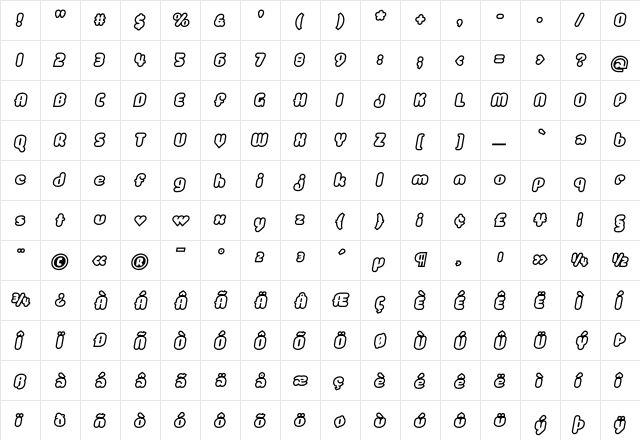
Luvbug Outline
Design Context for Luvbug Typeface
Luvbug is built around its visual character rather than neutral utility — its distinctive forms are designed to make an impression at display sizes.
Font Pairing: Pair with a clean neutral sans-serif for body copy to let Luvbug's character lead without overwhelming the composition.
Pro Tip: Treat Luvbug as the centrepiece of your typographic hierarchy. One strong heading set in a decorative face can carry an entire layout.